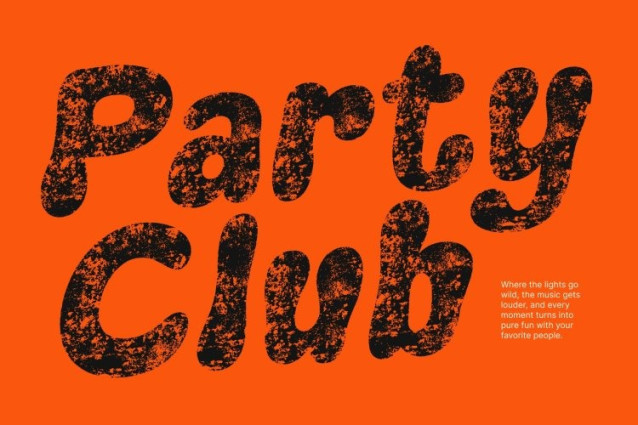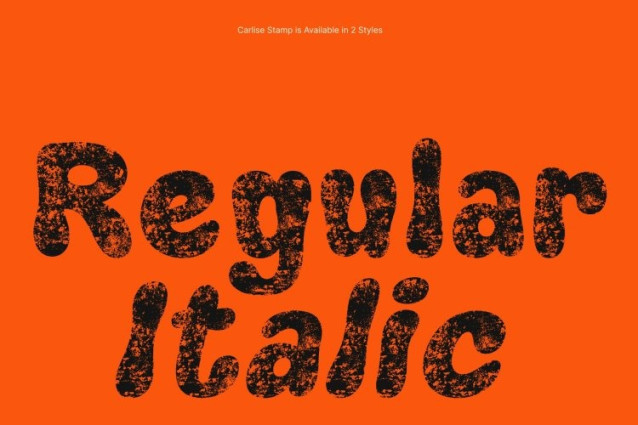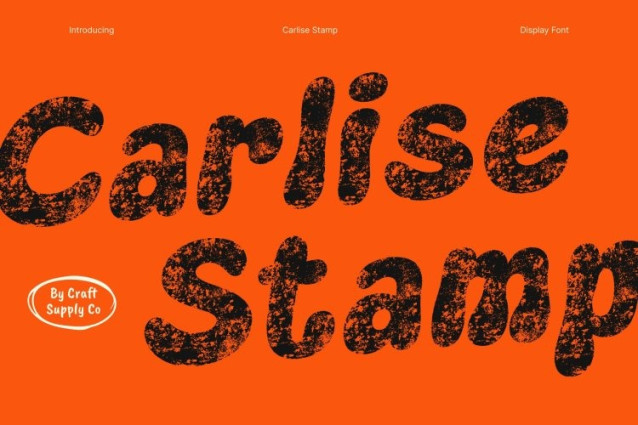
Carlise Stamp Font This is a classic display font crafted with retro, groovy shapes that bring back the charm of vintage typography. Its decorative curves and rhythmic letterforms create a funky, playful, and energetic look, making every design feel lively and full of attitude.
Stamp Texture for a Unique and Expressive Finish
Enhanced with a bold stamp texture, this font gains an extra layer of personality. The rough, imperfect texture adds a handcrafted, expressive quality that makes the font feel artistic, dynamic, and visually striking, perfect for designers who want something with character.
Perfect for Eye-Catching Retro & Nostalgic Designs
The groovy styling of this font makes it ideal for projects inspired by vintage aesthetics. Use it for posters, album covers, event graphics, or funky branding to instantly deliver a nostalgic yet modern vibe that stands out.
Versatile for Creative & Playful Visual Projects
Beyond its retro influence, this font works beautifully in any playful or expressive layout. Whether you’re creating titles, creative packaging, merchandise, or social media graphics, this font brings a bold, energetic personality that grabs attention and elevates your design with flair.